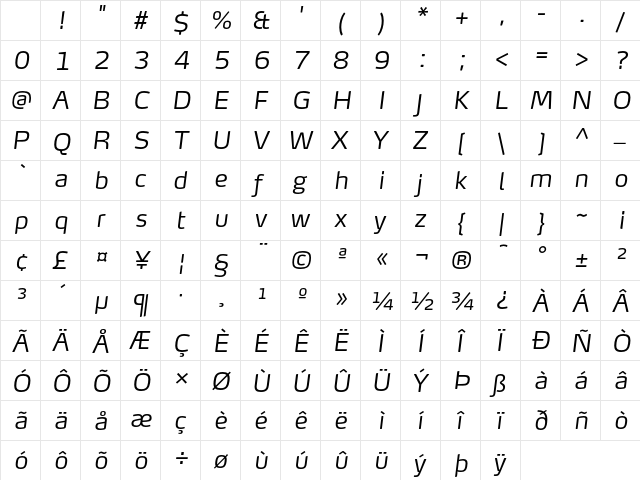
Complete MaxTF-LightItalic Regular glyph index. Displaying only characters natively supported by MaxTF-LightItalic Regular font.
MaxTF-LightItalic is a composed and adaptable typeface that performs quietly and consistently across a wide range of design contexts. The slanted form adds forward momentum and visual energy. Its slender proportions lend an understated elegance to any composition.